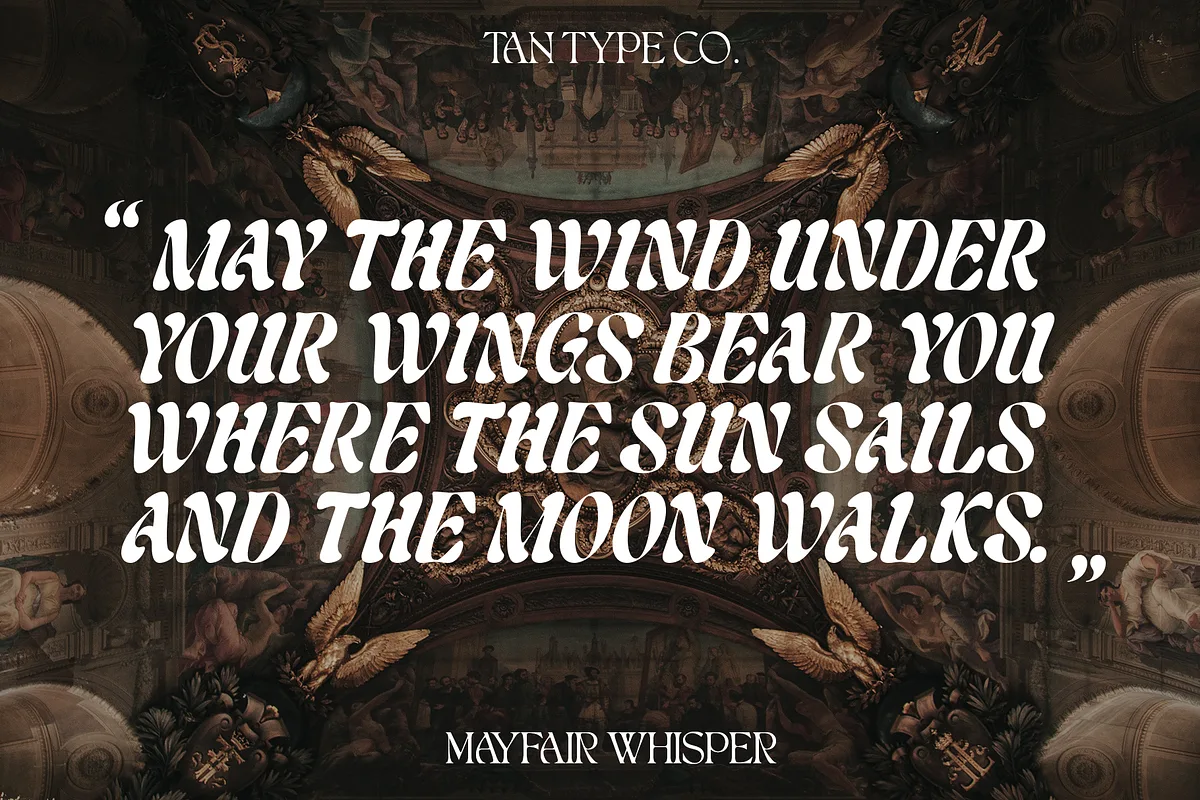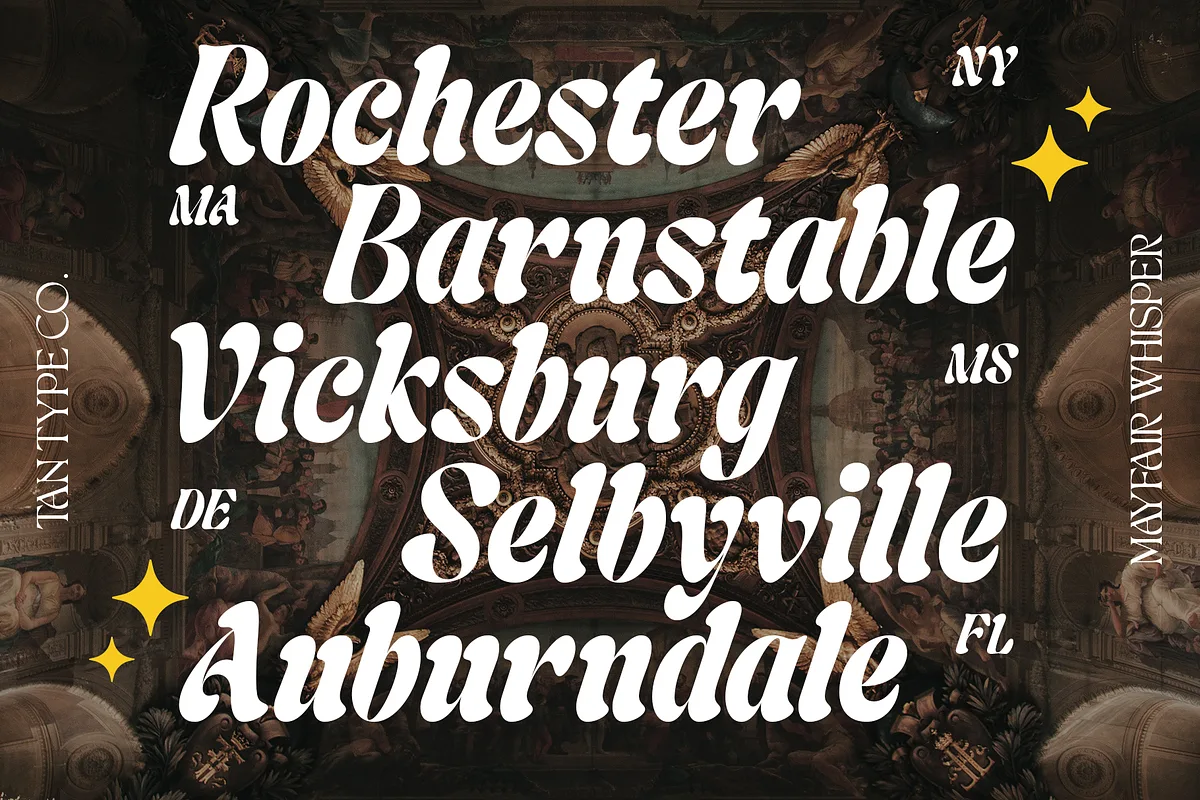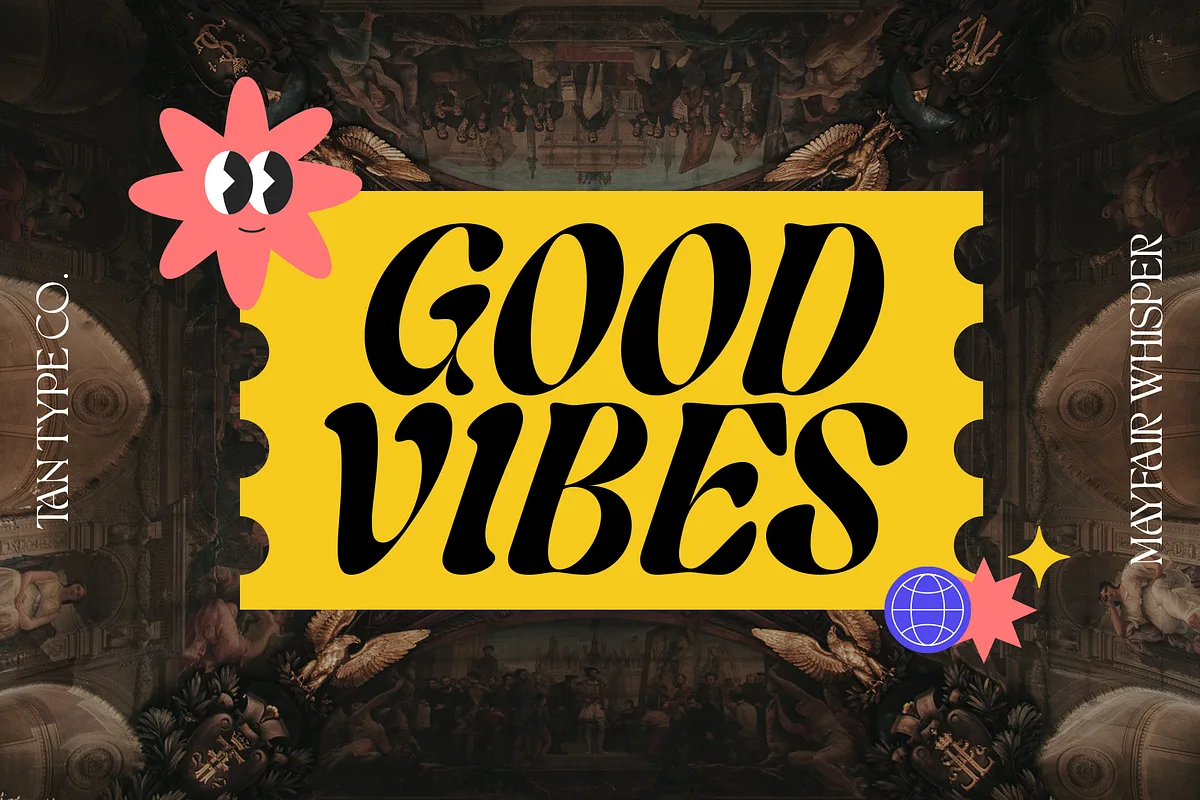
TAN – Mayfair Whisper is a funky, retro-inspired display typeface that combines boldness with an air of elegant playfulness. With its wonky, offbeat letterforms and quirky curves, this font gives a nod to vintage design while maintaining a unique, modern twist.
Its bold strokes make a strong visual impact, while the irregularities in its structure lend it a whimsical, carefree spirit. Perfect for projects that need to stand out with personality, Mayfair Whisper works wonders in everything from eye-catching logos to stylish headlines. It’s the perfect blend of retro charm and contemporary flair, bringing a touch of fun elegance to any design.